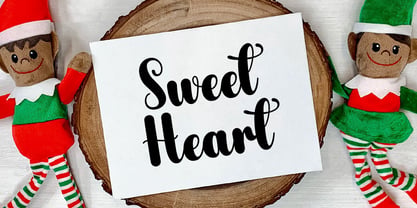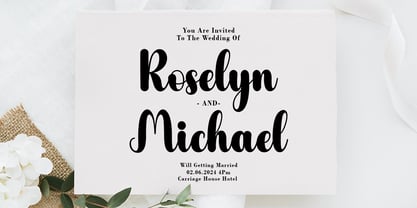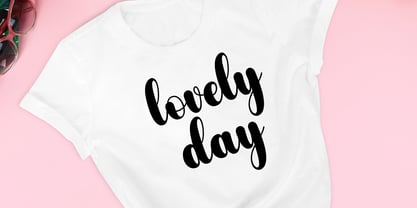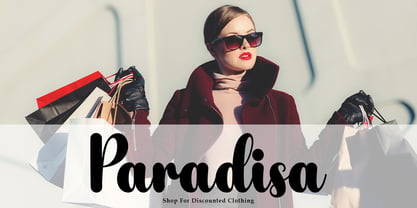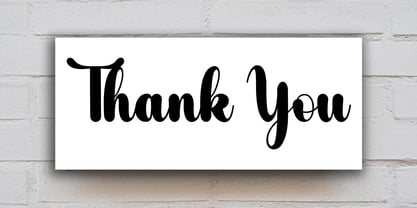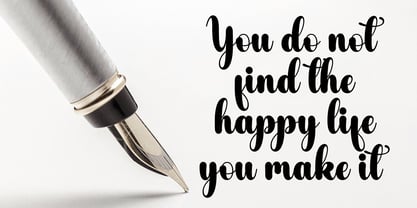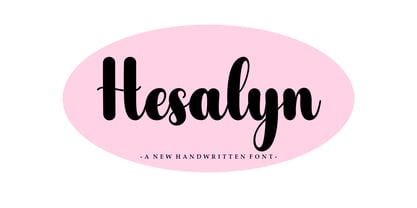
Hesalyn Script
por Good Design
A família de fontes Hesalyn Script foi desenhada por Agus Pujiyono e publicada pela Good Design. Hesalyn Script contém 1 estilos. Saiba mais sobre esta família
Hesalyn Script is a handwritten inspired font with an aesthetic touch.
Hesalyn Script is versatile enough for web and print and can be used in projects such as stationery, packaging, clothing, wedding stationery, prints, quotes, social media graphics, planners, greeting cards, logos, branding and many more. .
Designers: Agus Pujiyono
Fundição: Good Design